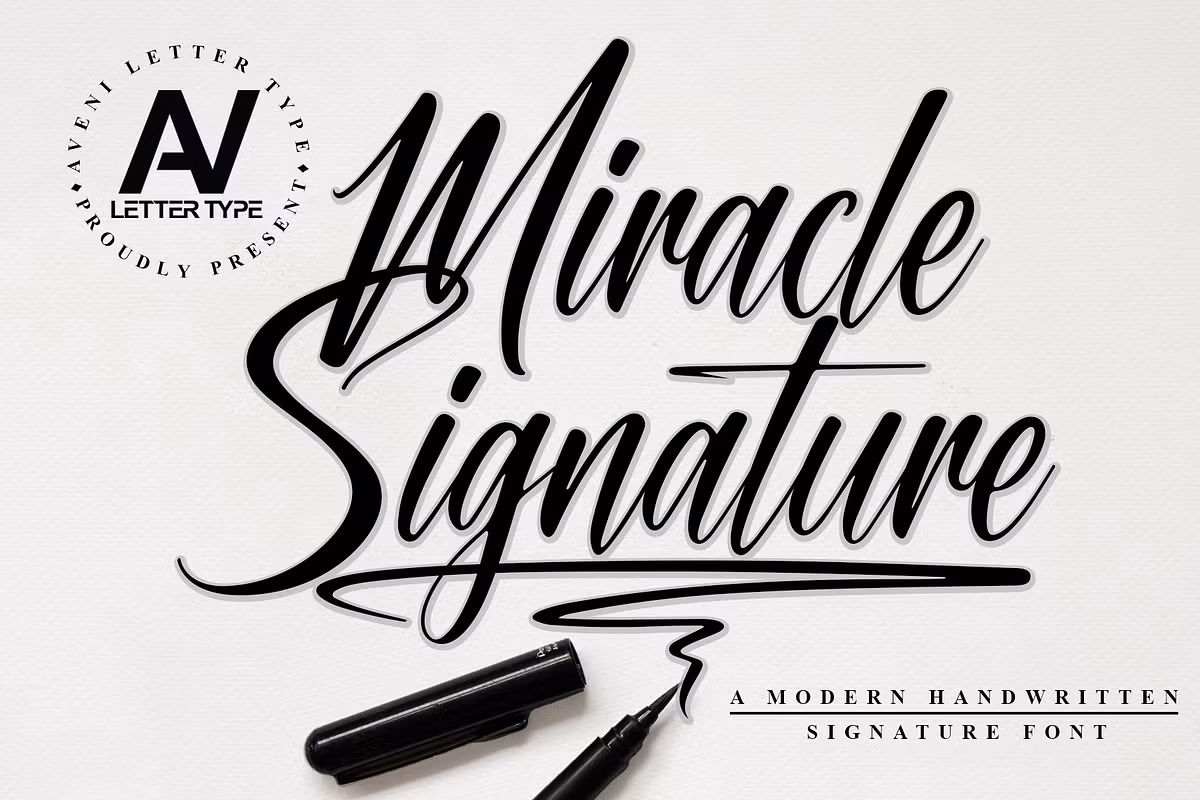
Miracle Signature | Handwritten Font Free Download
Miracle Signature | Handwritten Font Free Download is a sleek and elegant script typeface designed to mimic the natural flow of a personal signature. With its smooth curves, delicate lines, and stylish letterforms, this font is perfect for logos, branding, business cards, social media posts, and luxury packaging that calls for a touch of class and authenticity.
Miracle Signature | Handwritten Font Free Download stands out with its minimalist charm and refined aesthetic—ideal for fashion, beauty, and lifestyle projects that need a handwritten yet polished feel. Whether you're creating a personal brand or a high-end product label, this font adds sophistication with every stroke.